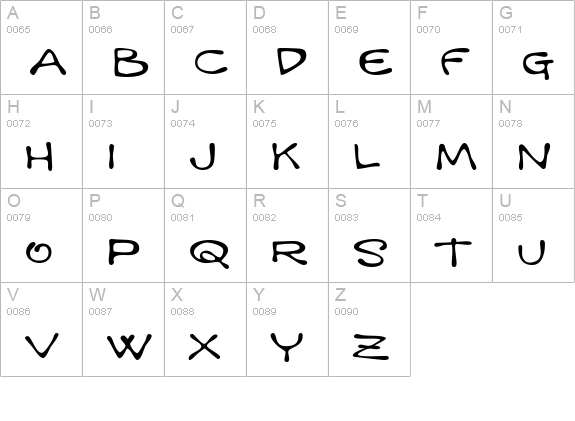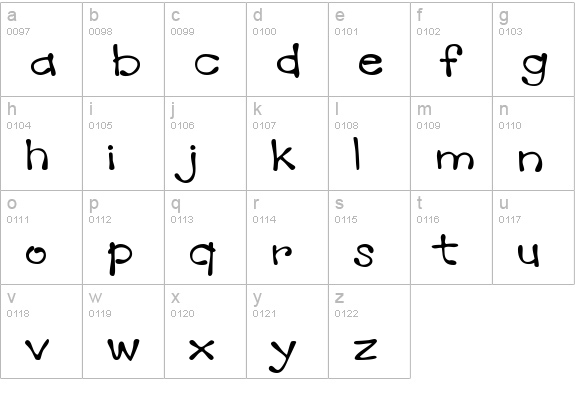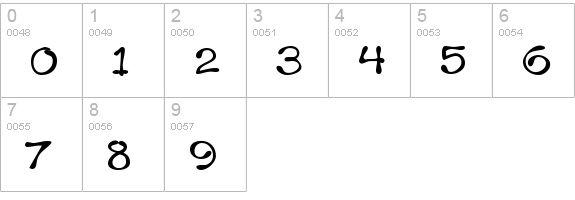
Mandingo BTN Ext is a bold and striking font that exudes confidence and power. With its clean lines and strong presence, this font is perfect for making a bold statement in any design project. The extended version of Mandingo BTN offers even more versatility and impact, allowing for a wider range of creative possibilities. Whether you're designing a logo, poster, or website, this font will make sure your message is seen and heard. But what sets Mandingo BTN Ext apart is that it is not only visually impressive, but also freely available to download. That's right, you can get your hands on this amazing font without spending a dime. Simply visit FontsMarket.com and start using Mandingo BTN Ext today. With its elegant and modern look, Mandingo BTN Ext is sure to elevate your design to the next level. Don't miss out on this opportunity to add a touch of sophistication to your projects, all for free. Get Mandingo BTN Ext now and let your creativity soar.